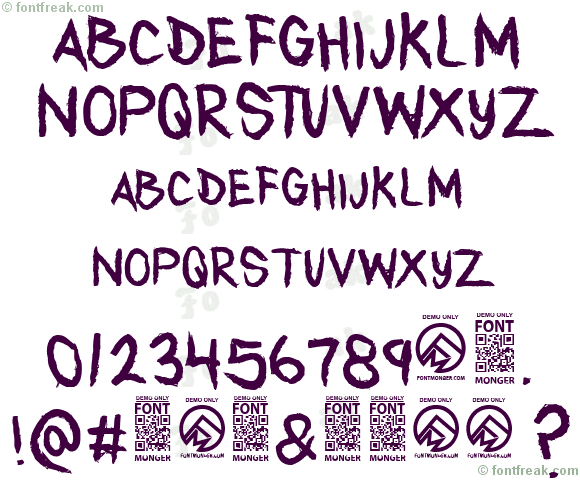
Any Takers Regular
About Any Takers Regular
Any Takers Regular is a distinctive display font designed by Chris Vile, categorized as a decorative typeface. Its unique style features uneven stroke weights and a playful, slightly chaotic visual aesthetic that captures attention. The font exhibits a hand-drawn quality, with irregular character shapes and decorative elements that evoke a sense of spontaneity and creativity. The spacing between letters is moderate, ensuring legibility while maintaining a whimsical feel.
This font is versatile and can enhance a variety of design projects. It's particularly well-suited for use in creative invitations, such as birthday parties or casual gatherings, where its informal vibe can set the tone. Additionally, Any Takers Regular is perfect for creating engaging movie posters, capturing the viewer's interest with its dynamic look. It also shines in restaurant menus, adding a touch of personality to the dining experience, and is ideal for branding elements aimed at younger audiences or creative businesses. Graphic designers, small business owners, and content creators will find this font useful for projects that require a fun and approachable visual identity.
What makes the Any Takers Regular font stand out is its ability to blend playfulness with artistic flair. This font is a great choice for those seeking to differentiate their work through unique typography. With its free availability, designers can easily access the Any Takers Regular font free download, making it an appealing option for both personal and commercial projects. Its charm and originality ensure that it will leave a lasting impression on viewers, making it a valuable addition to any designer's toolkit.